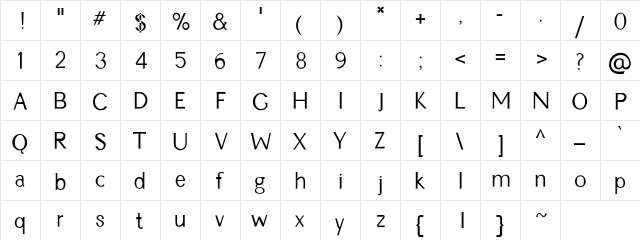
Kathlita Regular
Design Context for Kathlita Typeface
Kathlita takes a measured approach to typography — its balanced proportions and neutral character make it a reliable workhorse for both digital and print work.